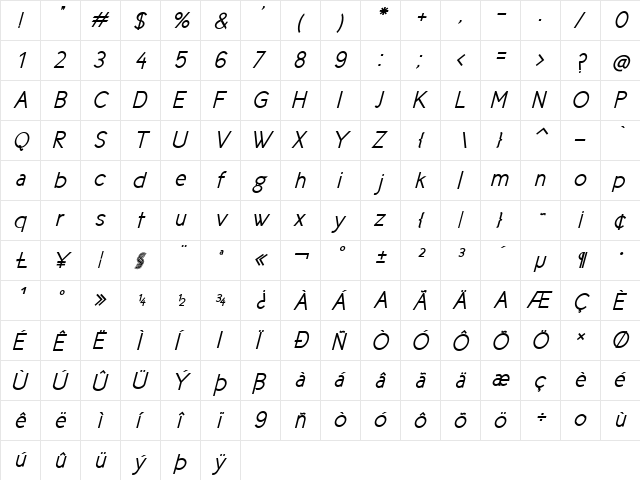
New Cicle Gordita Italic
Design Context for New Cicle Typeface
New Cicle takes a measured approach to typography — its balanced proportions and neutral character make it a reliable workhorse for both digital and print work. The dynamic lean of this cut emphasises speed and emphasis in any layout.
Pro Tip: Use New Cicle for emphasis, pull quotes, and subheadings where its slanted energy can add rhythm to the layout.